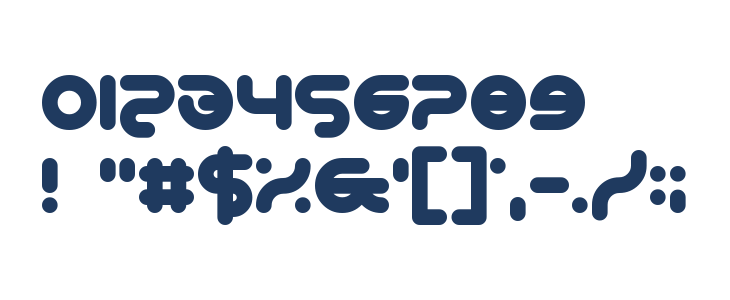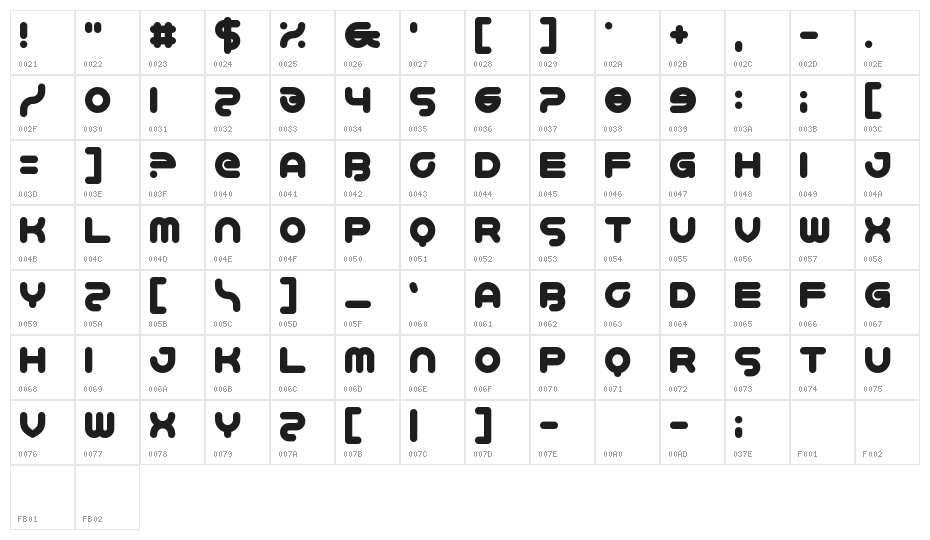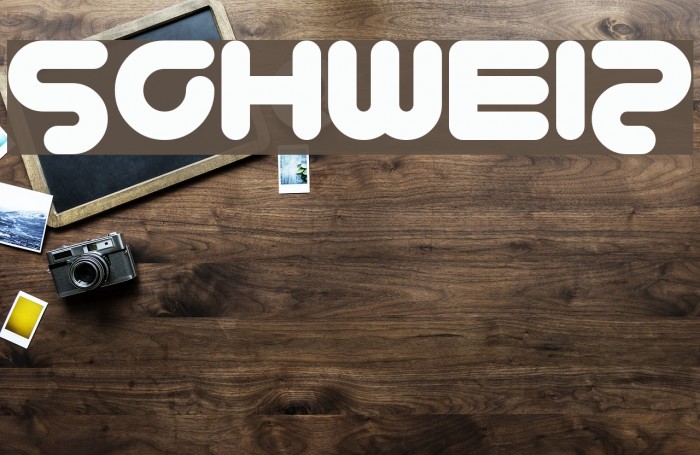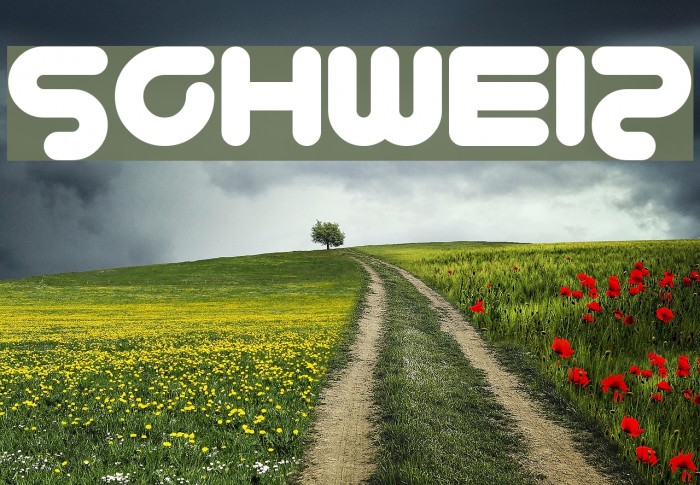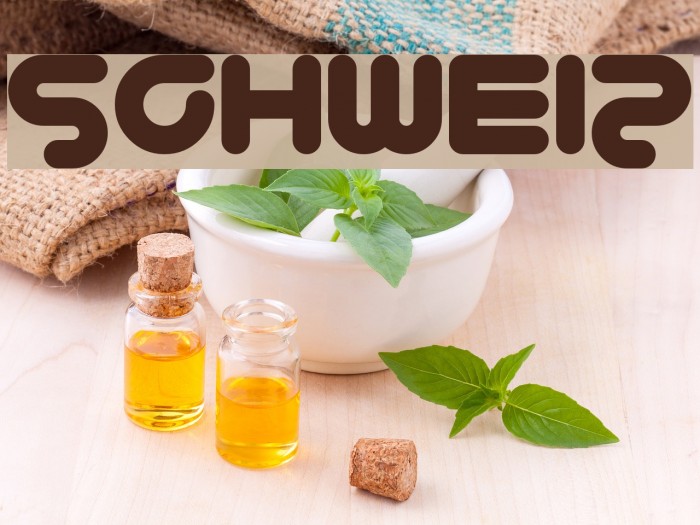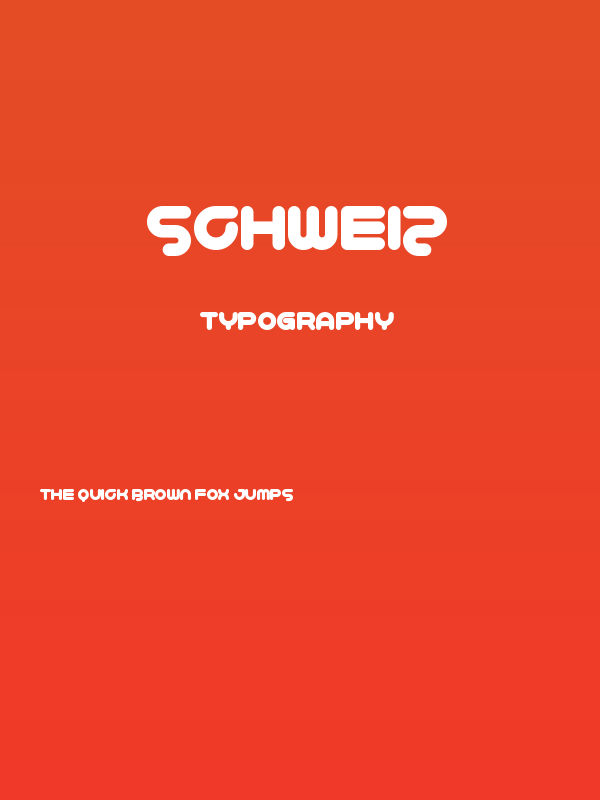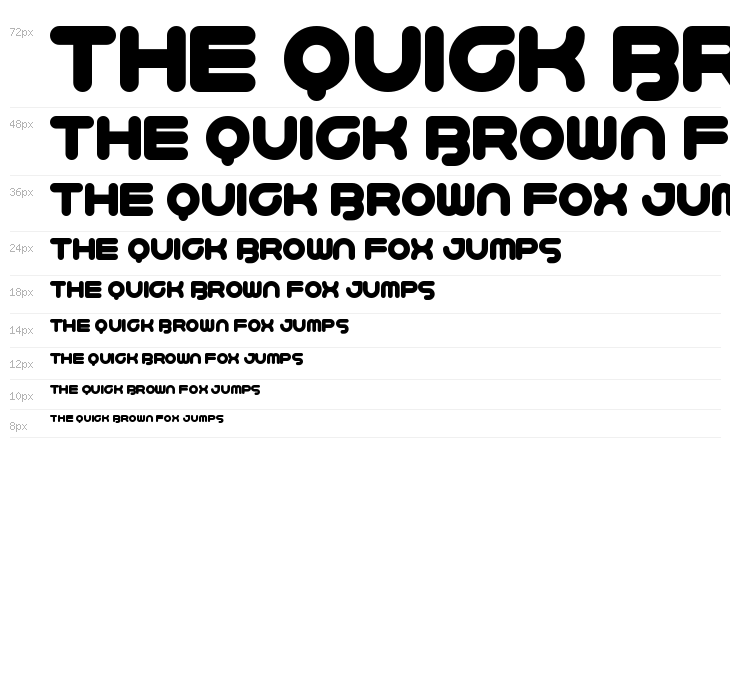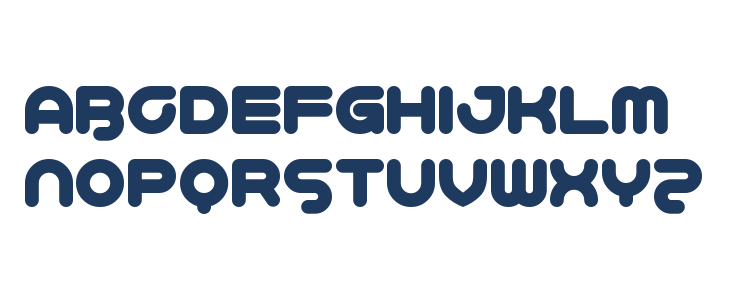
Schweiz Font
Schweiz Description
This font features a bold, rounded style with a modern and playful aesthetic. The characters are uniformly thick, giving a strong and confident appearance. The rounded edges and consistent stroke width contribute to a friendly and approachable look. The font maintains a consistent height across all characters, ensuring a balanced and cohesive appearance. Its geometric design is both eye-catching and versatile, making it suitable for a variety of creative applications. The numbers and special characters are designed to match the overall style, providing a seamless integration across all elements.